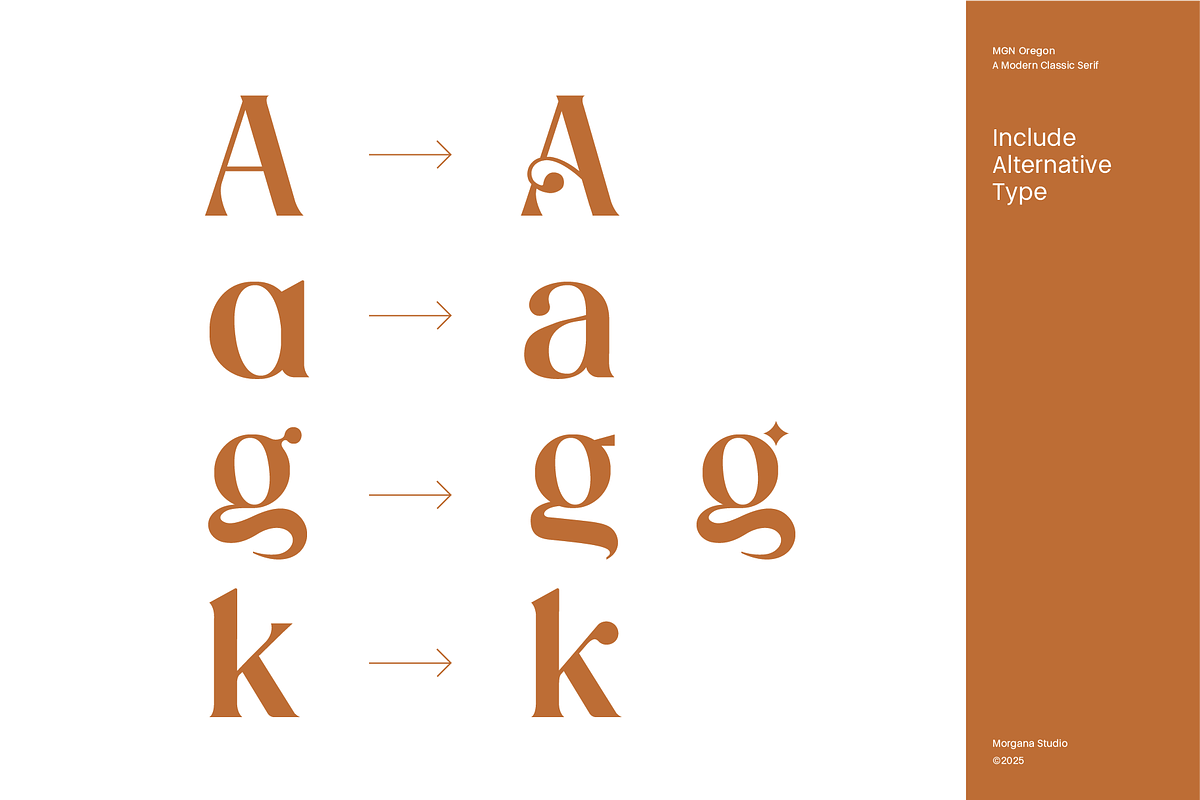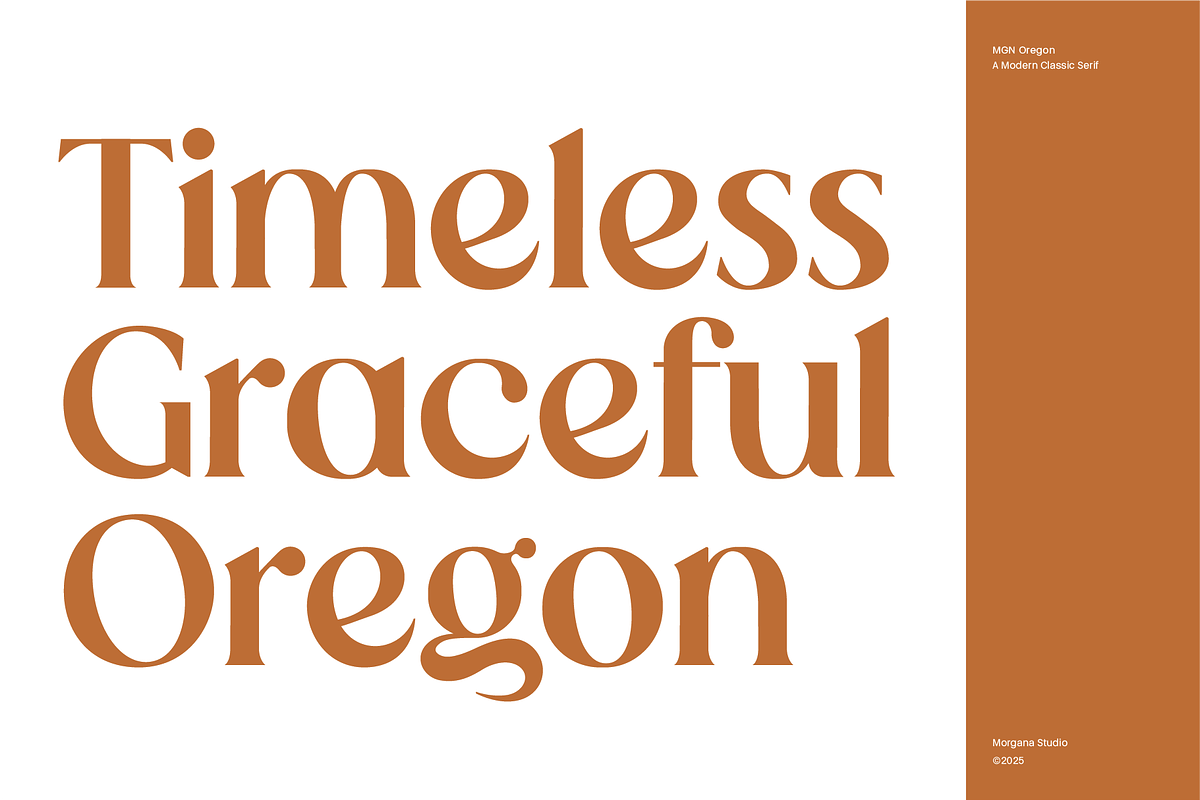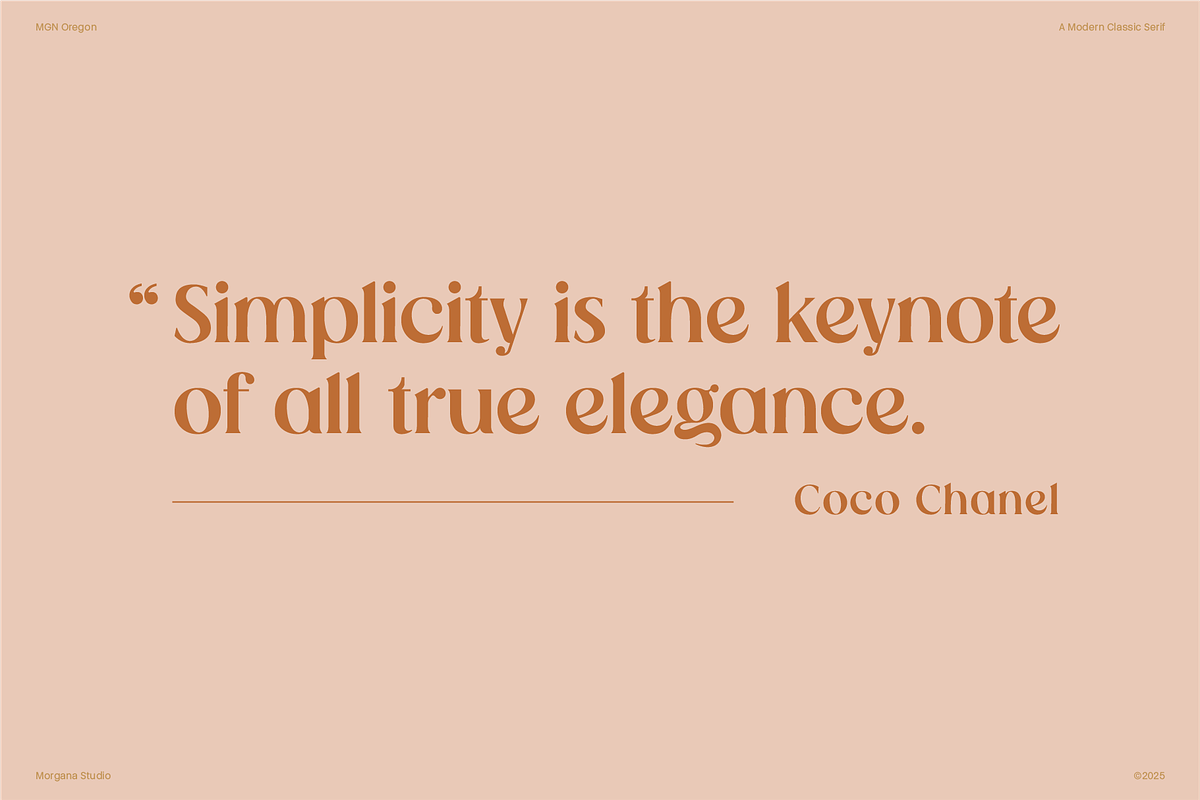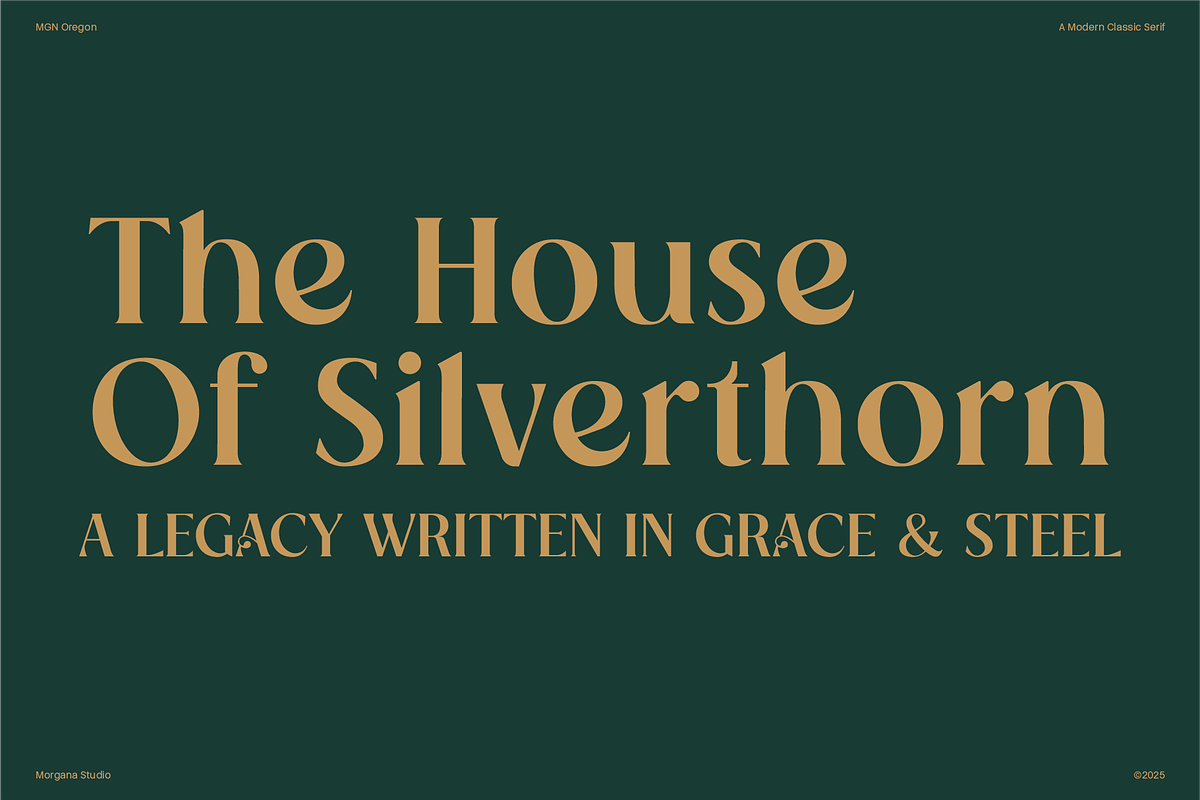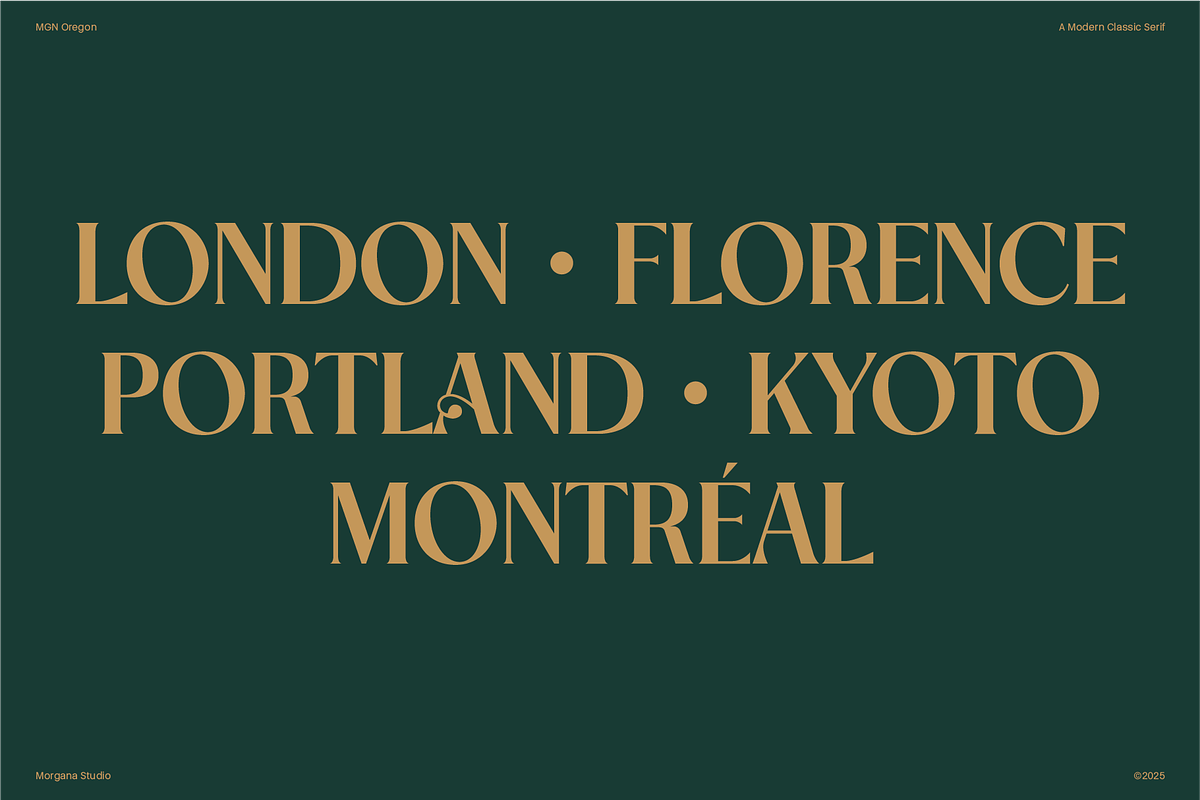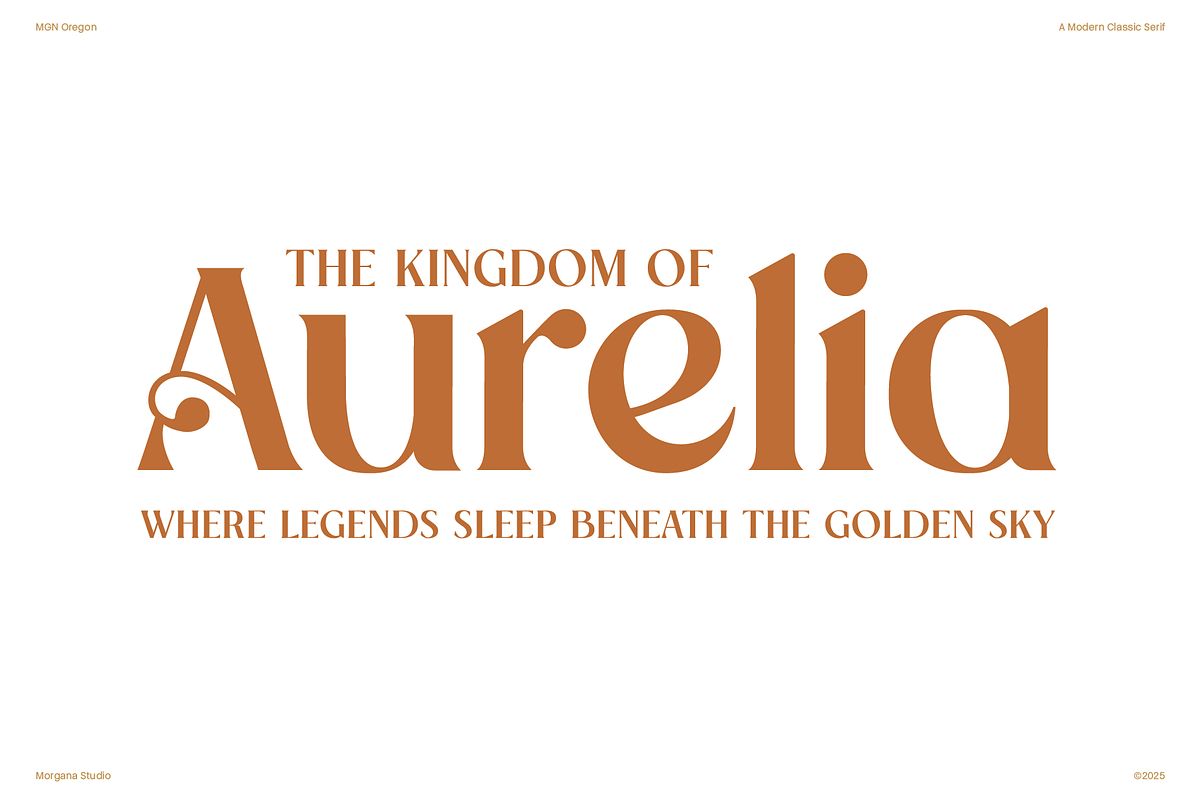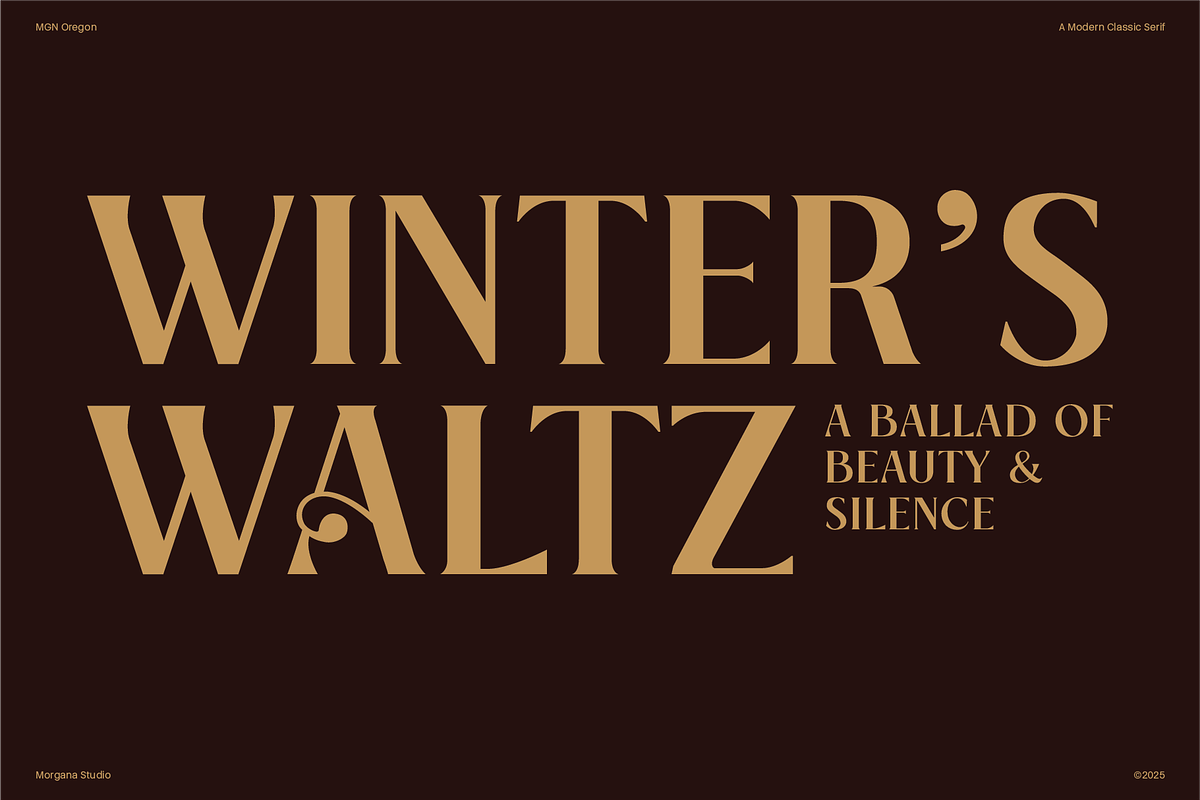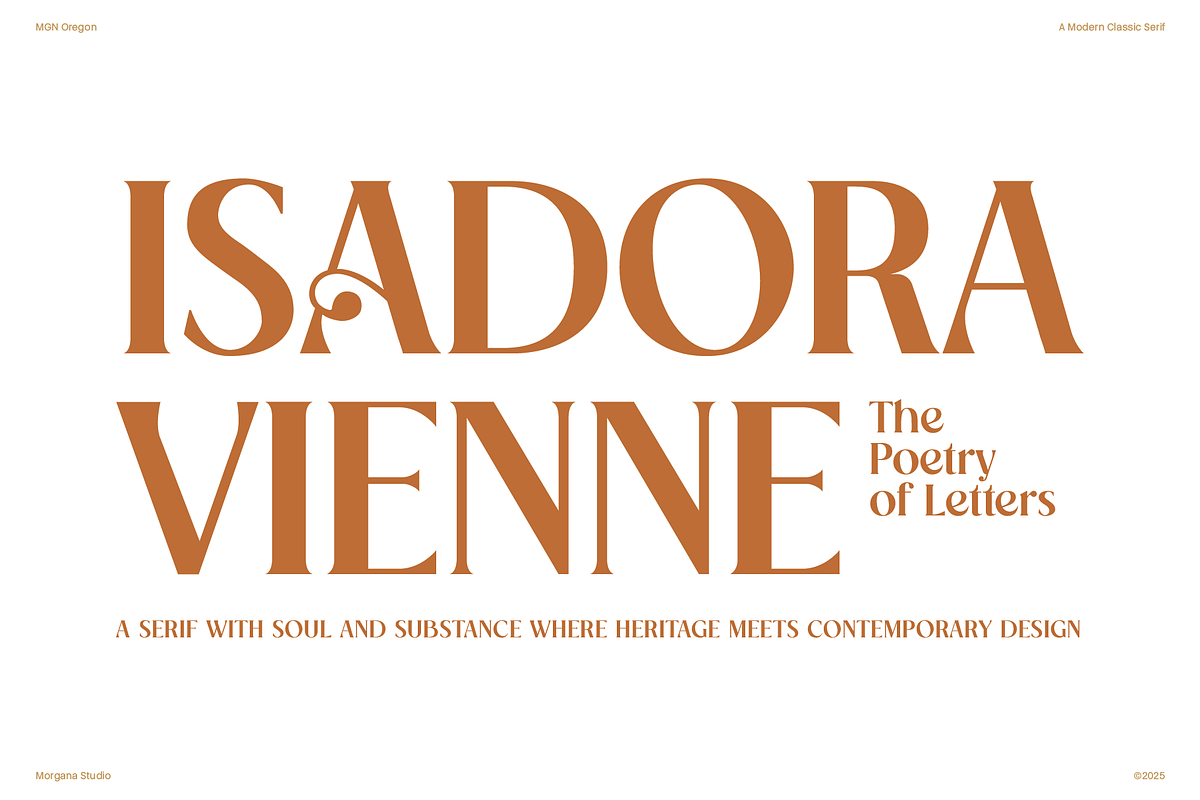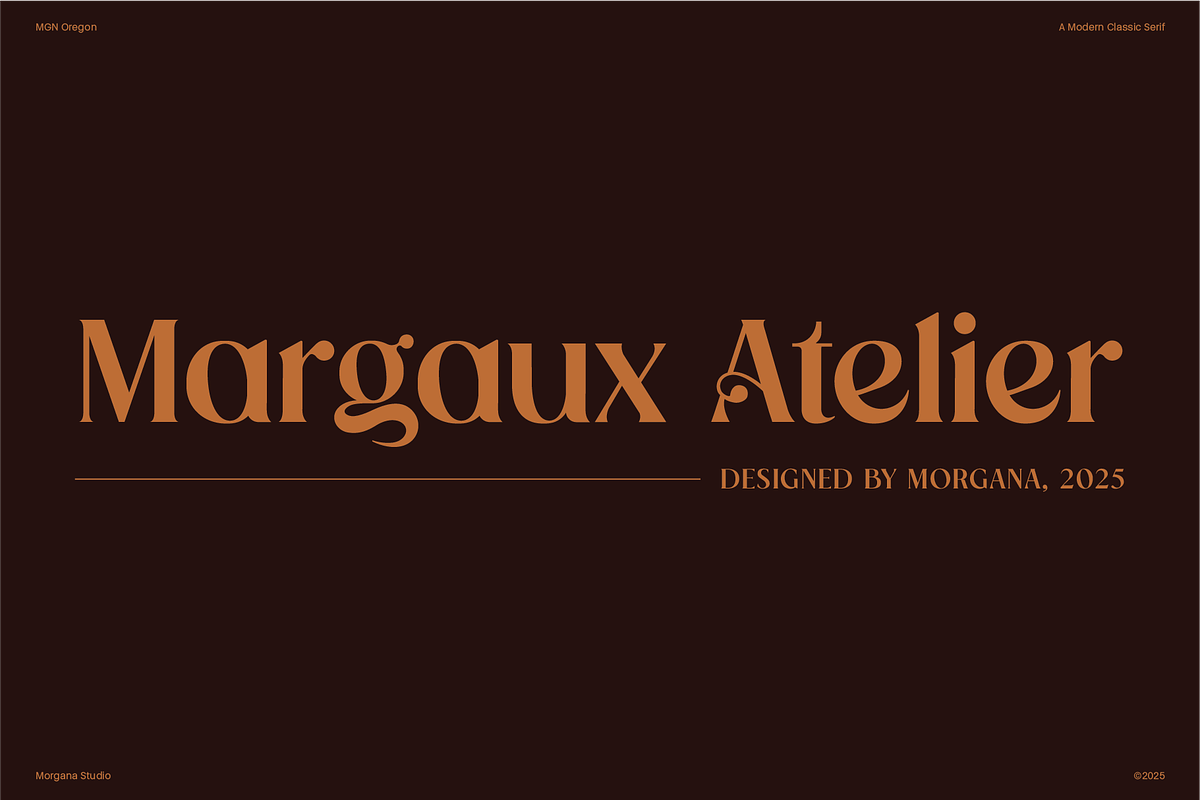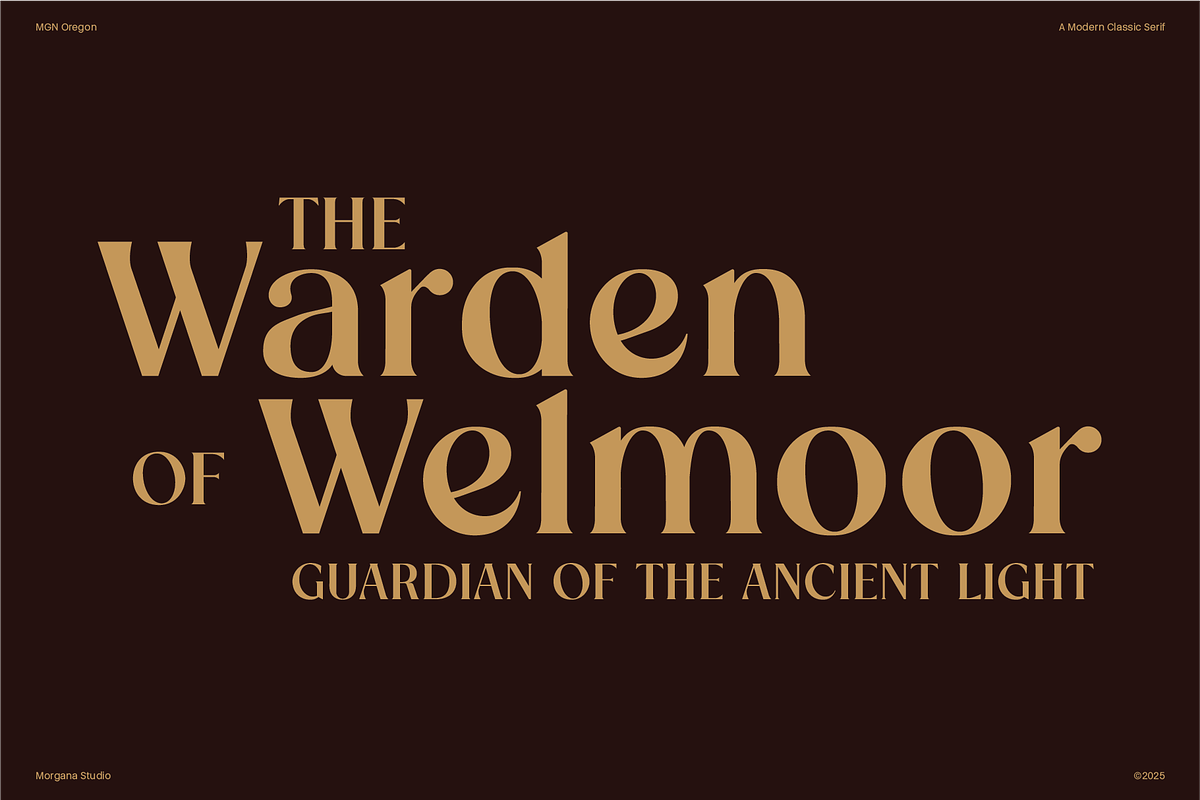
MGN Oregon
MGN Oregon is a refined serif typeface released in 2025, designed to embody a timeless balance between elegance and modernity. Its graceful curves, sharp serifs, and harmonious proportions evoke a sense of sophistication inspired by classic editorial typography. Crafted with versatility in mind, MGN Oregon performs beautifully across print and digital applications—ideal for branding, headlines, and high-end design projects seeking warmth, refinement, and enduring style.